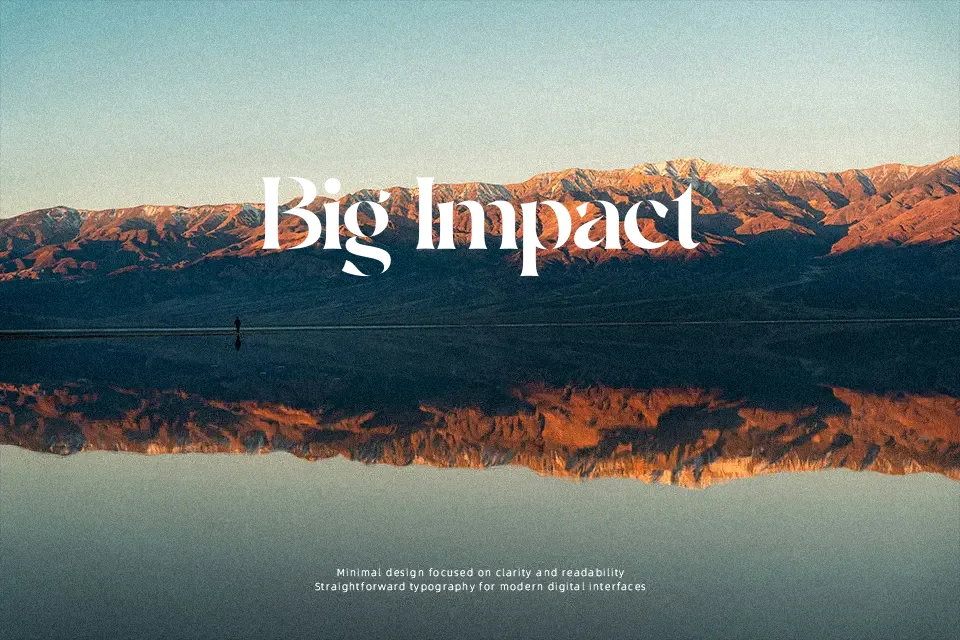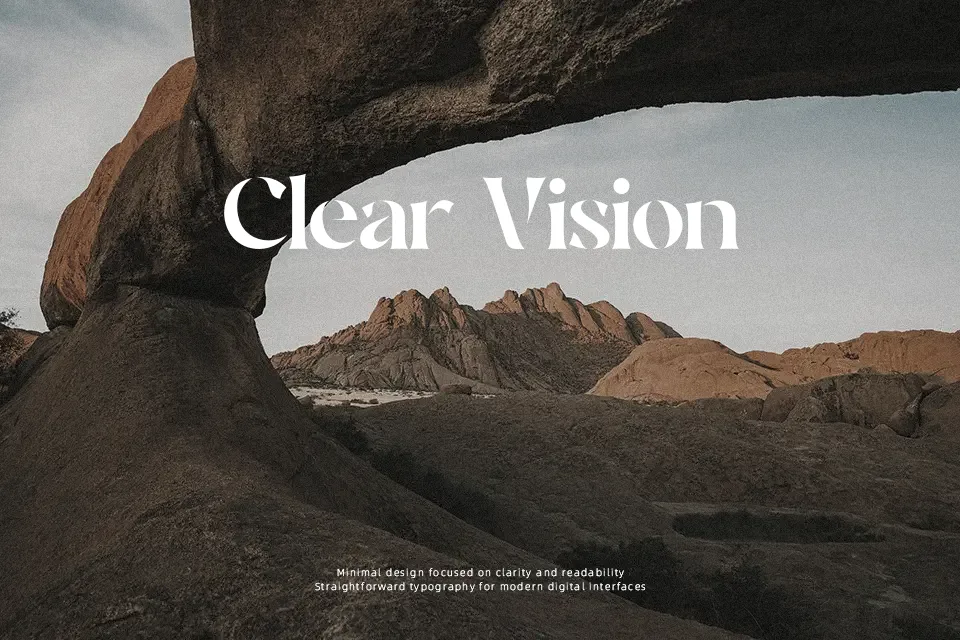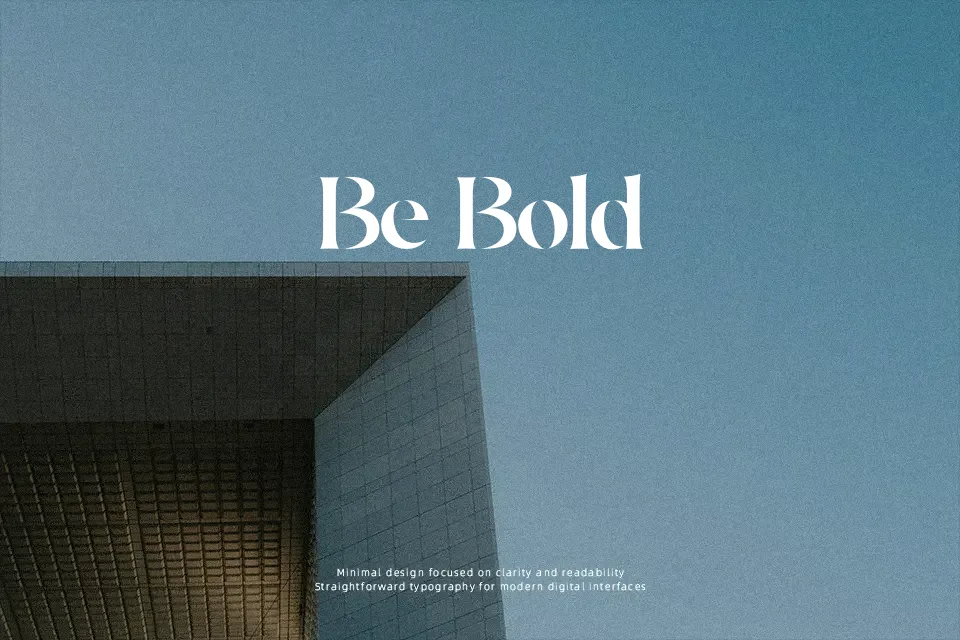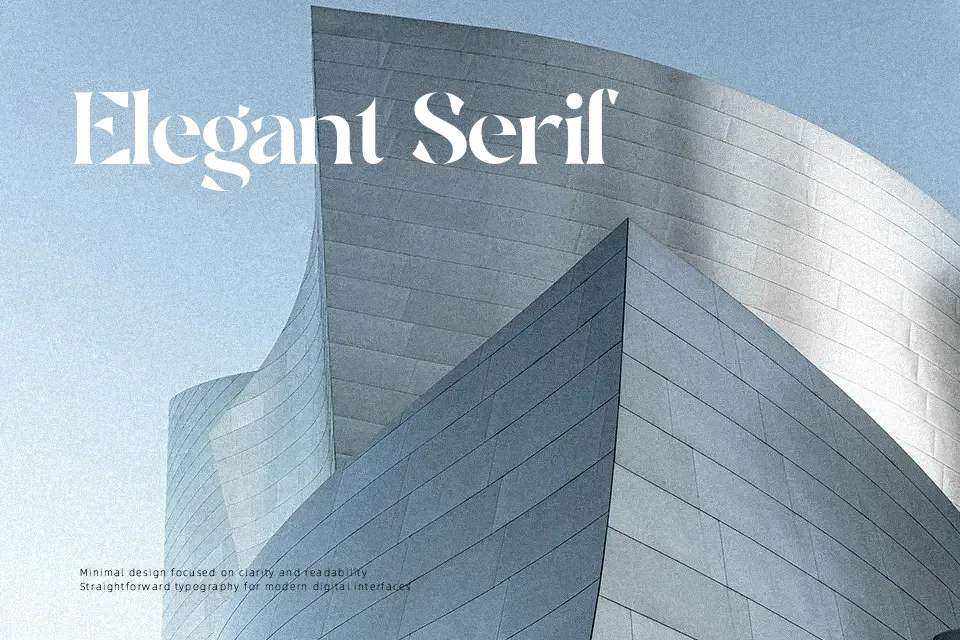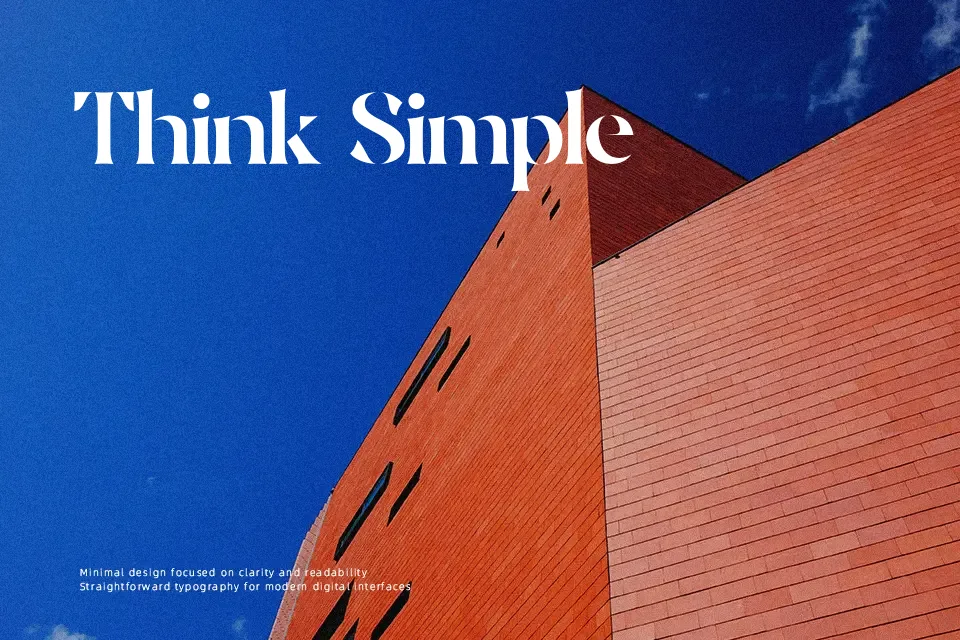
Brogte Font
Designed by Storytype Studio
Brogte is a serif display typeface with stencil breaks, tight vertical structure, and balanced contrast that gives text a polished yet slightly edgy feel. Its letterforms feel modern and classic at the same time, so it fits naturally in high-end logos, magazine mastheads, packaging for premium products, and title graphics for film or lookbooks. When you need headlines to stand out without shouting, the controlled gaps and sophisticated rhythm do a lot of visual work with very little space. It is less convincing in dense body text or informal, playful layouts where the stencil cuts can feel stiff or overdesigned.
Luxury branding and fashion logos
Editorial covers and feature titles
Premium packaging and product labels
Film, book, or lookbook title graphics
Long body copy or small text sizes
Casual or playful children’s designs
Highly functional UI text or app interfaces
Plain corporate documents needing neutral tone
Perfect for branding, editorial, and fashion, with a bold and display style.